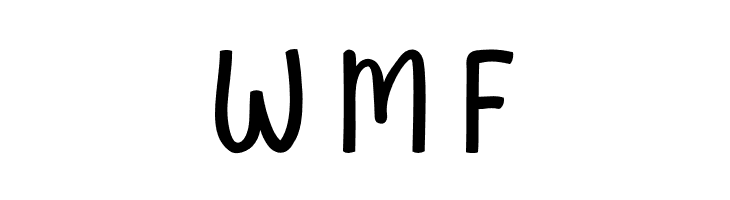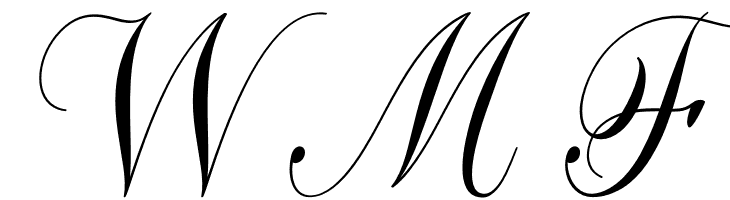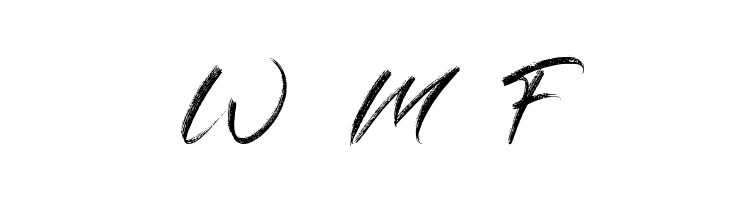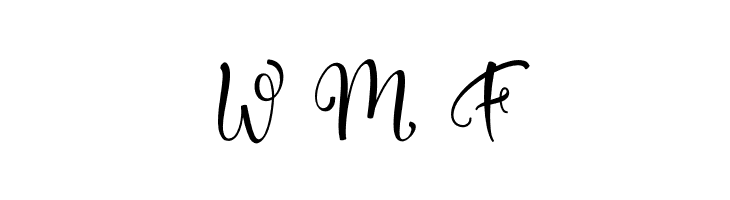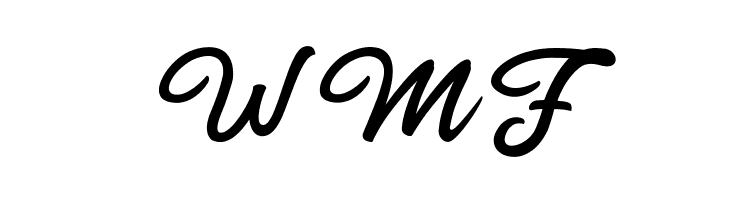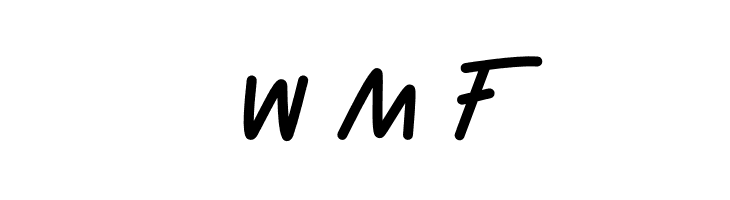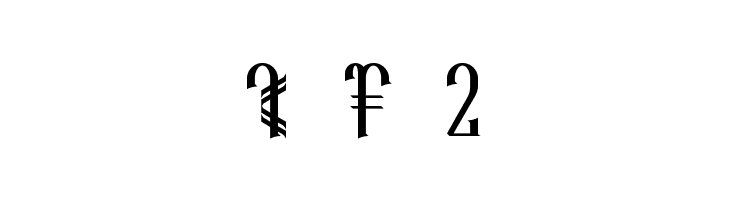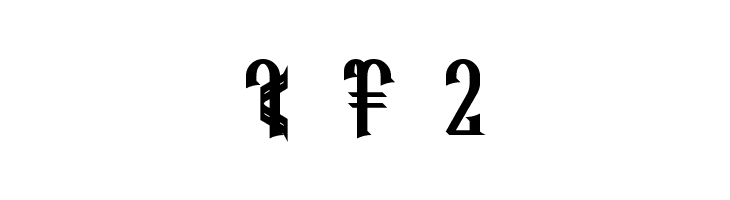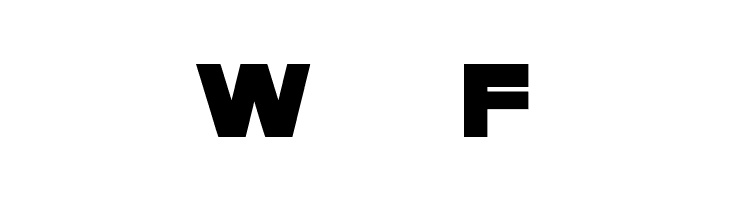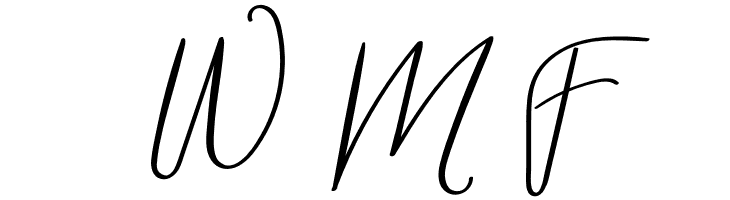
A playful, hand-drawn font with dynamic and irregular letterforms.
A geometric, angular font with intricate overlapping lines and bold outlines.
A bold, playful handwritten font with a dynamic and informal style.
A dynamic italic font with sharp, angular strokes and a modern, elegant style.
A modern, artistic font with elegant curves and distinctive serifs.
A dotted, textured font with a playful and abstract style.
An elegant and playful decorative font with ornate uppercase letters and stylish lowercase characters.
A playful, bold font with rounded, bubbly characters.
A bold, italic font with a dynamic, modern style and uniform stroke thickness.
A lively, cursive font with interconnected letters and medium contrast, perfect for elegant projects.
A bold, distressed font with geometric shapes and rough edges.
A playful, handwritten-style font with bold, slightly condensed characters.
Bold, energetic handwritten script font.
A graceful script font with fluid, connected strokes, ideal for personal and elegant designs.
A flowing script font with elegant, connected strokes and a handwritten feel.
A whimsical, cursive script font with decorative swirls and loops.
A bold, playful handwritten font with a casual and friendly style.
A lively and elegant handwritten script with fluid, cursive strokes.
A dynamic, brush-style font with expressive, hand-drawn strokes.
A bold, dynamic script font with a casual, handwritten style.
A playful handwritten font with a casual and friendly style.
A playful and bold font with rounded strokes and a lively appearance.
A sophisticated script font with elegant, flowing letterforms and high contrast strokes.
A playful, bold script font with flowing, energetic letterforms.
A lively, expressive handwritten font with dynamic strokes and a playful elegance.
An elegant, flowing script font with a dynamic, cursive style.
A bold, expressive script font with fluid, interconnected strokes.
A bold, cursive script font with dynamic and fluid strokes.
A dynamic, slanted script font with a flowing, cursive style.